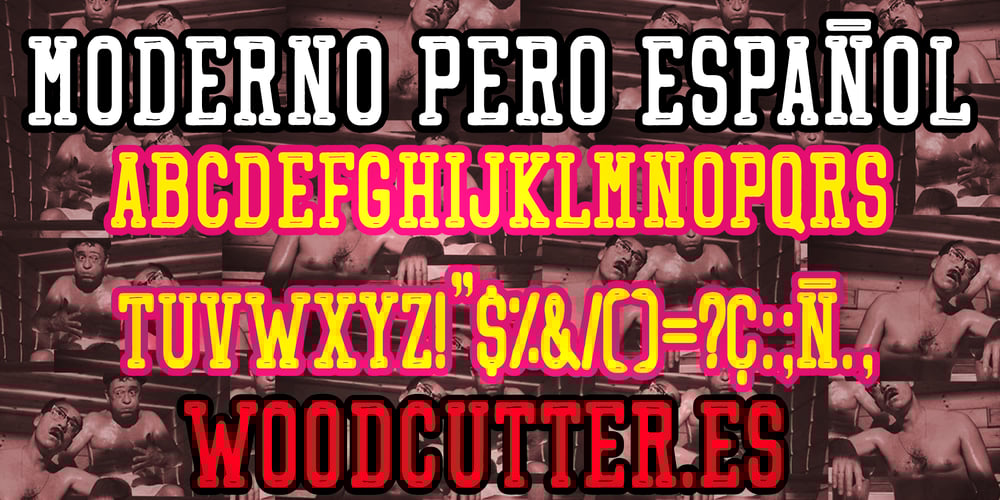
Moderno pero Espanol Font Family was designed by Jordi Manero and published by Woodcutter. Moderno pero Espanol contains 1 styles and family package options. “Moderno pero Español” is an elegant and decorative typeface, designed in uppercase and with accents. Perfect for projects seeking a blend of sophistication and a cultural touch, this font combines modernity with traditional Spanish elements. Its stylized forms and ornamental details make it ideal for titles, logos, and designs that require a refined and distinctive visual impact. With “Moderno pero Español,” every word becomes a work of art, bringing elegance and personality to any composition.